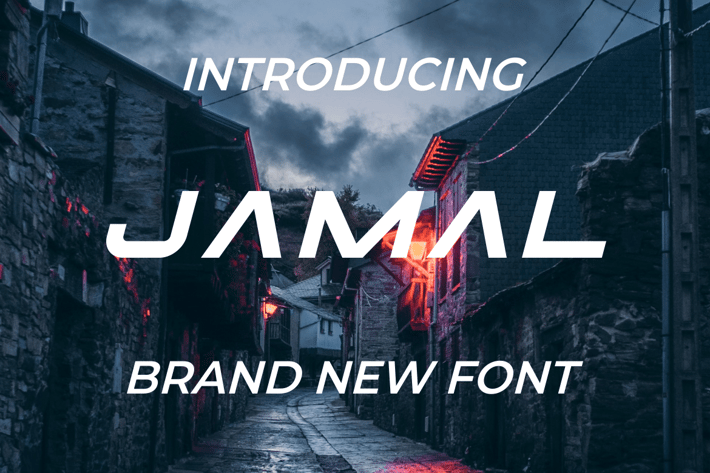
Jamal Techno Font
Introducing our new product Jamal Font - Modern Font
Jamal Font - Modern Font is a bold and authentic display font. The font is suitable for any branding project like logo, t-shirt printing, esport, and many more. outstanding in a wide range of contexts.